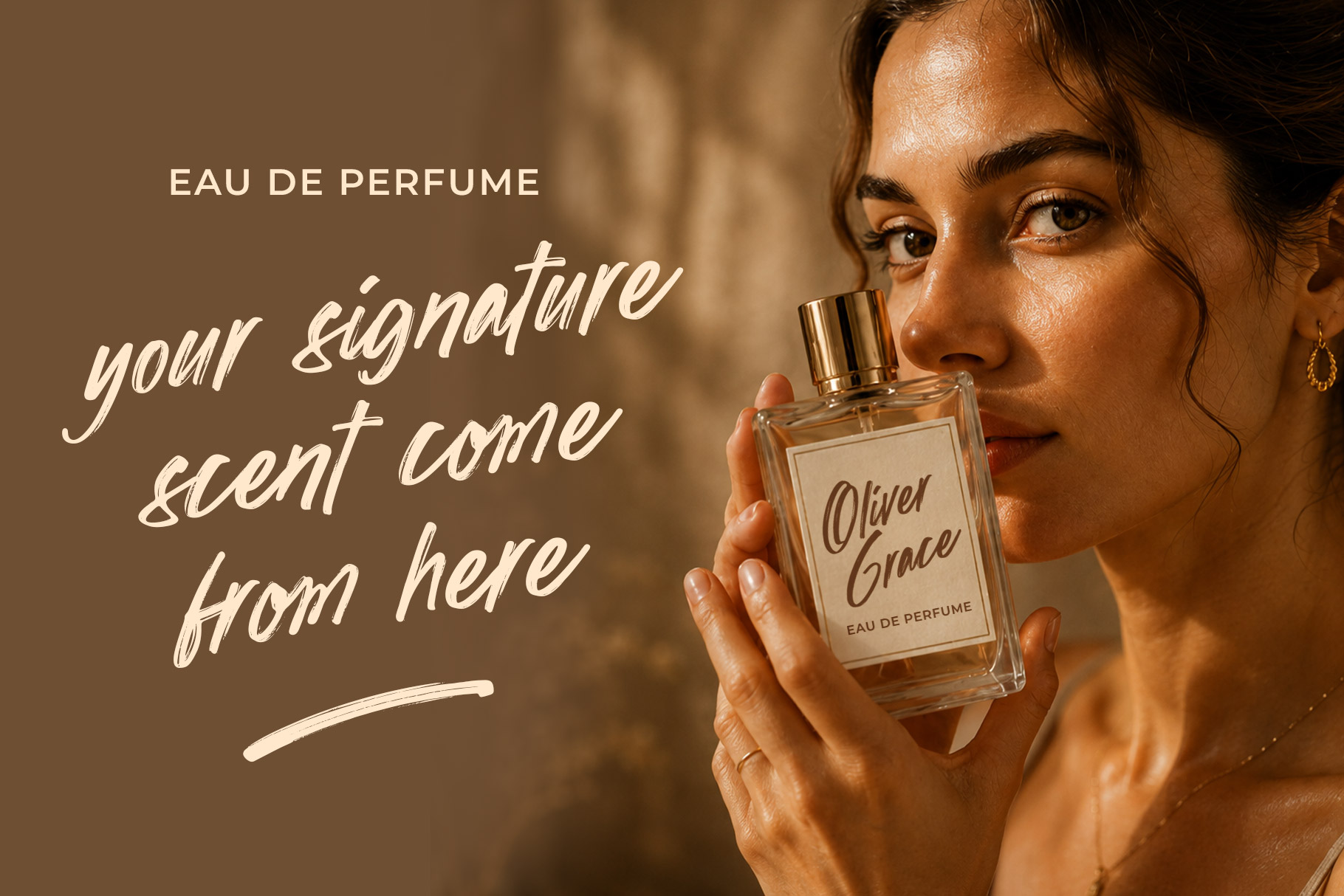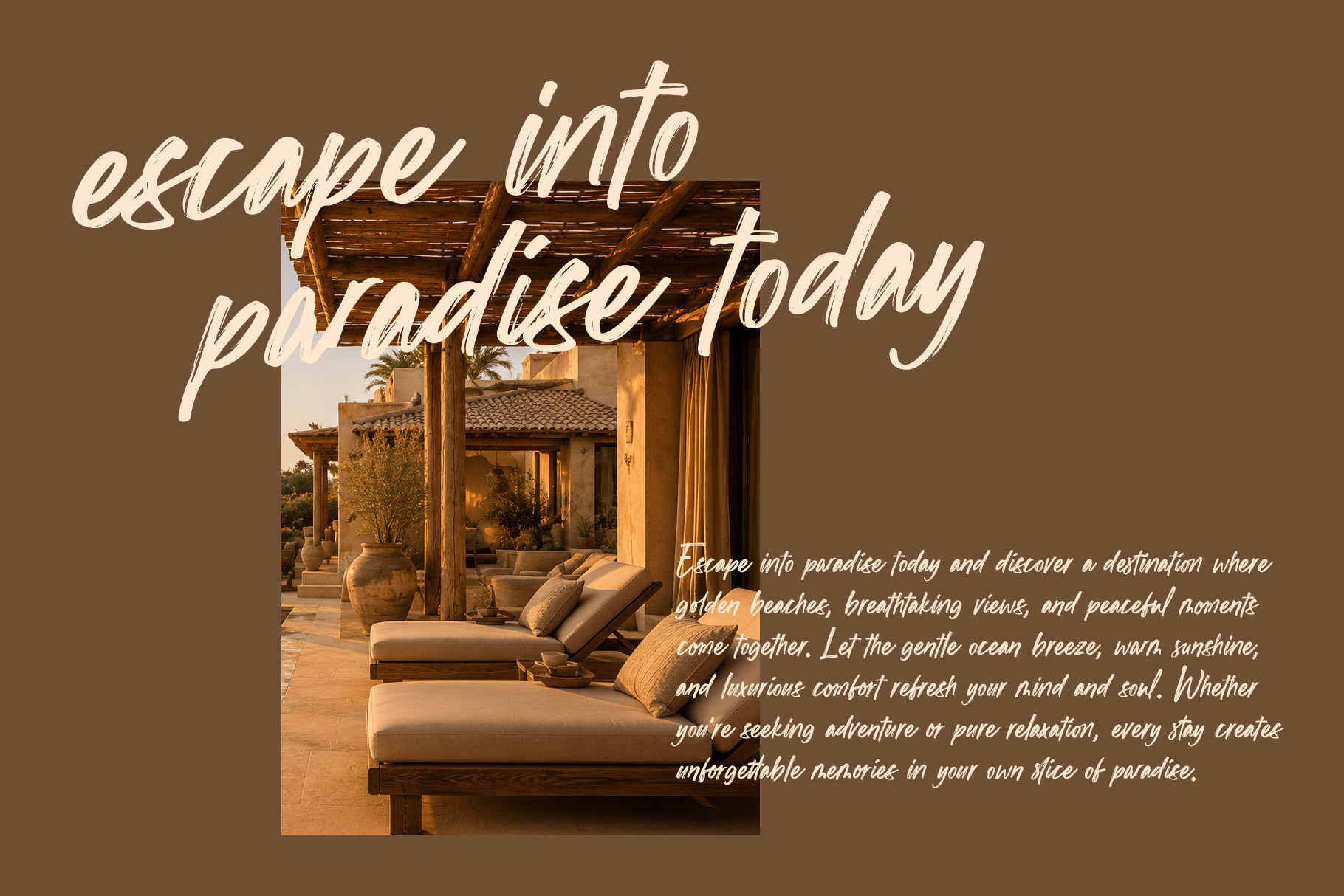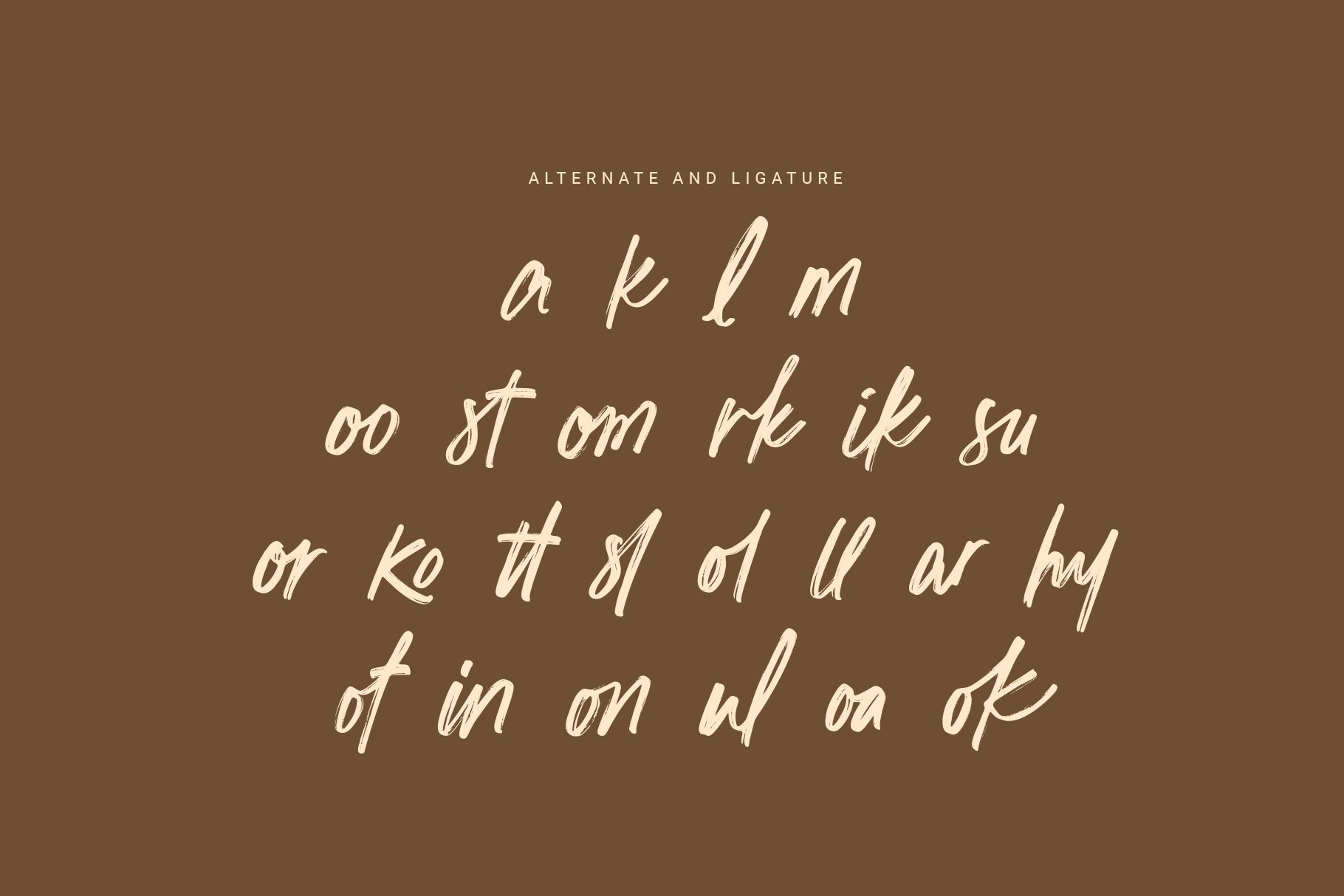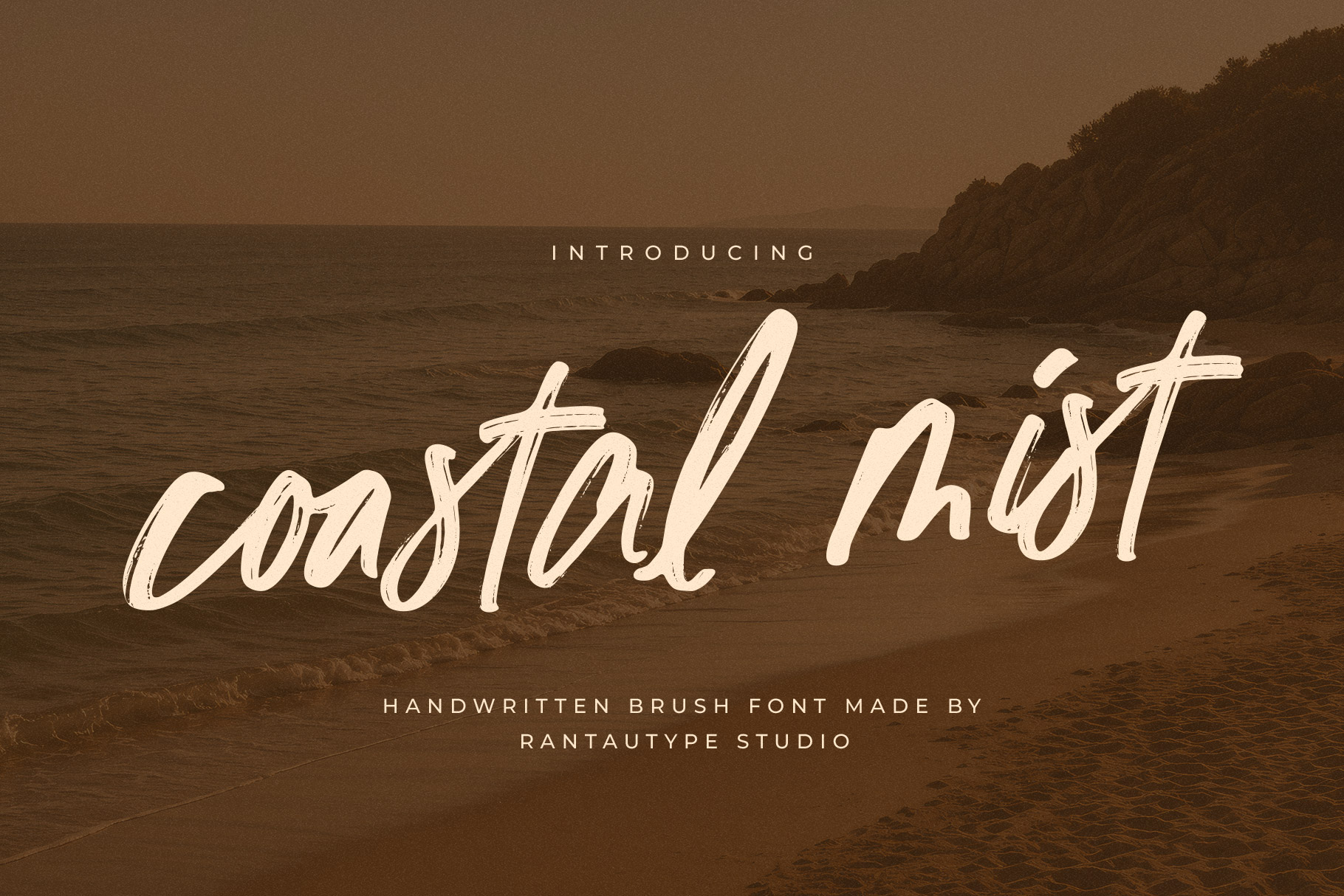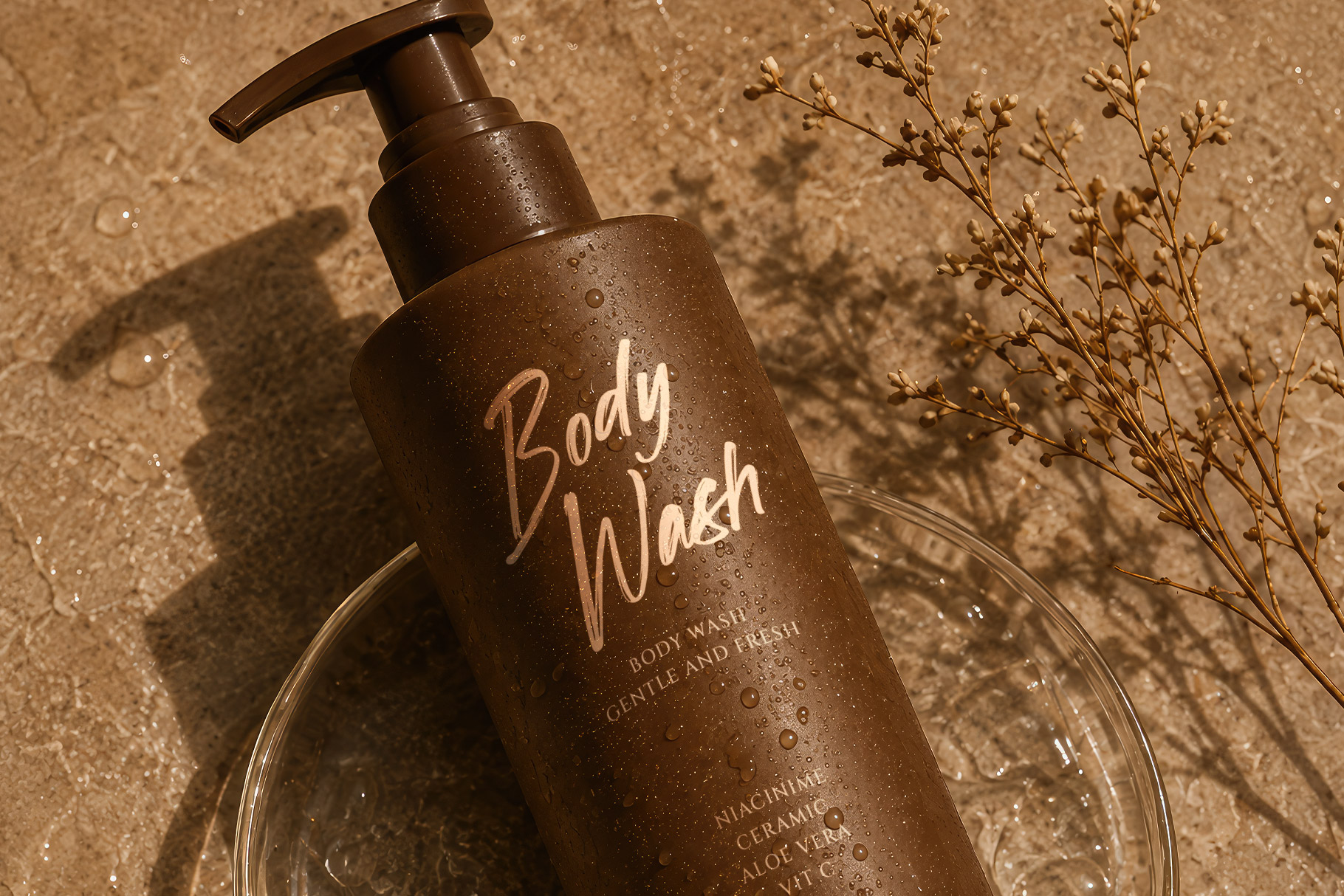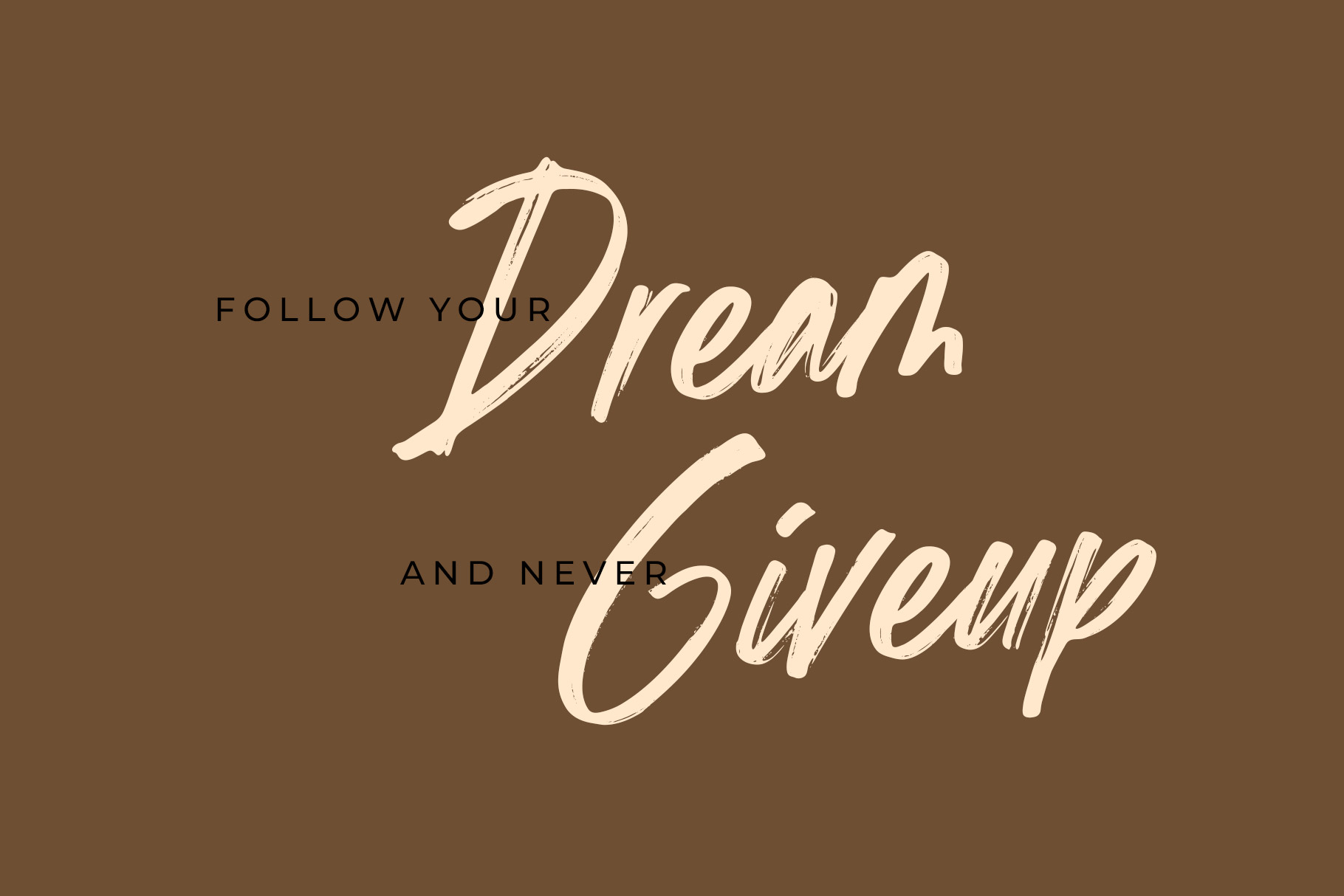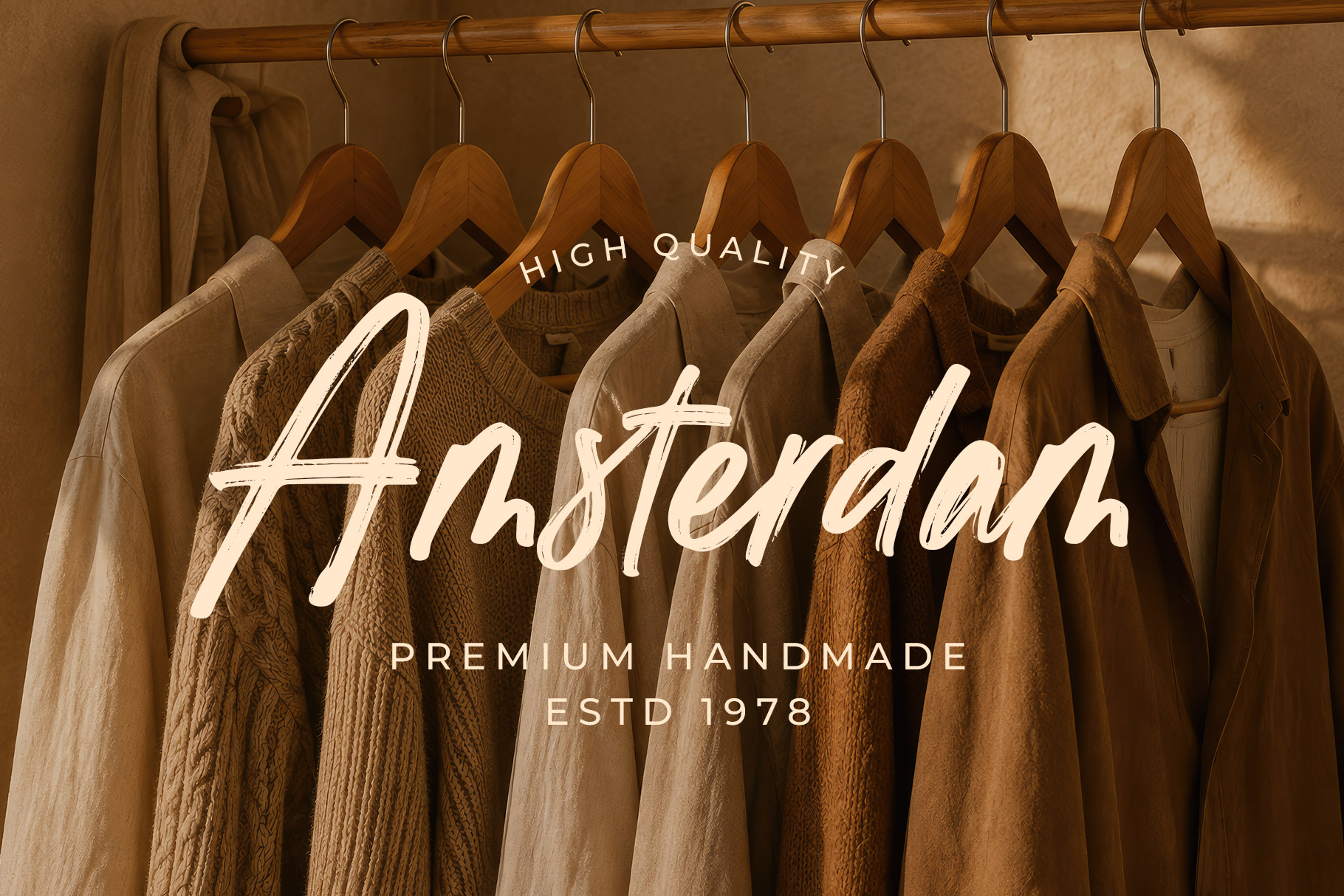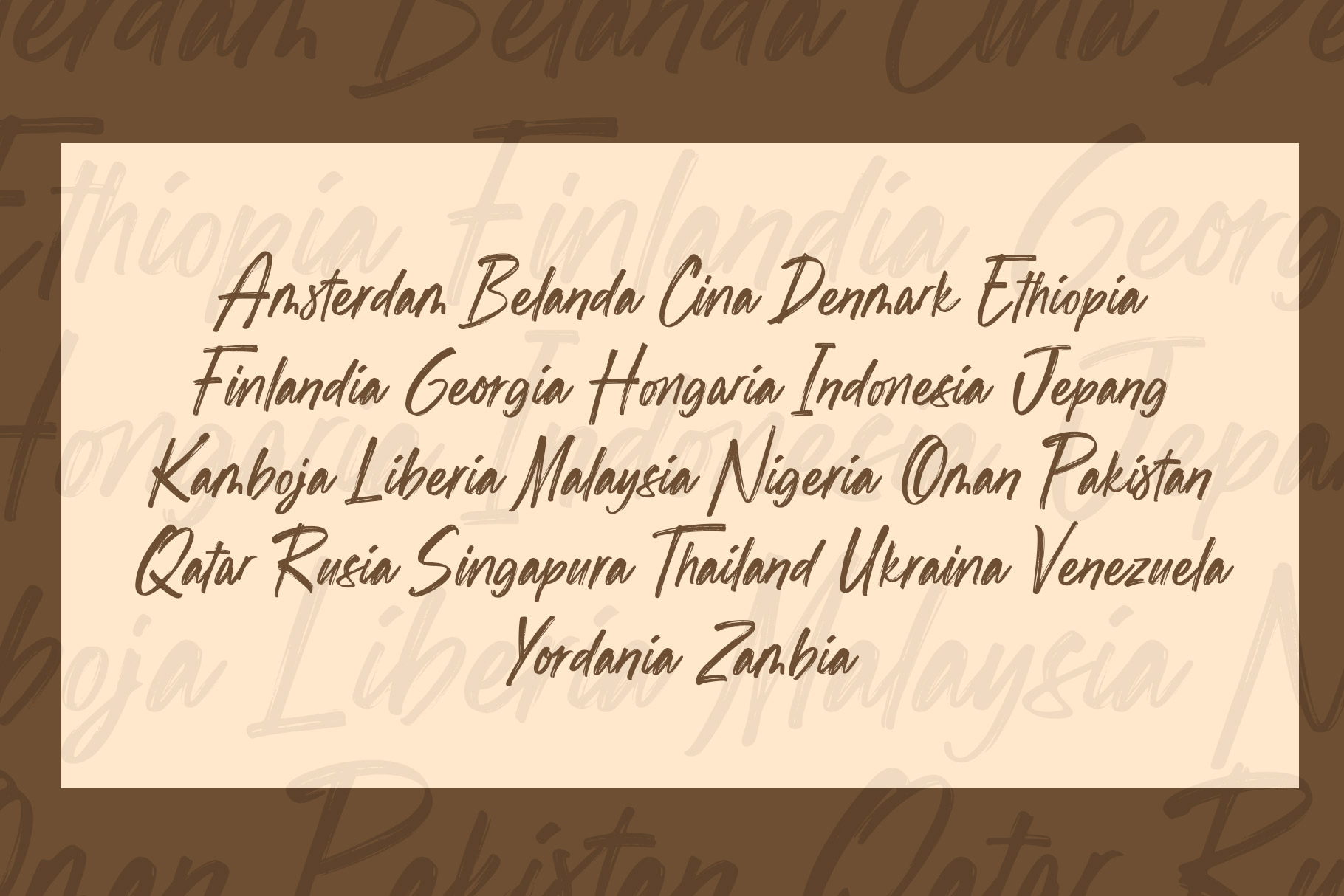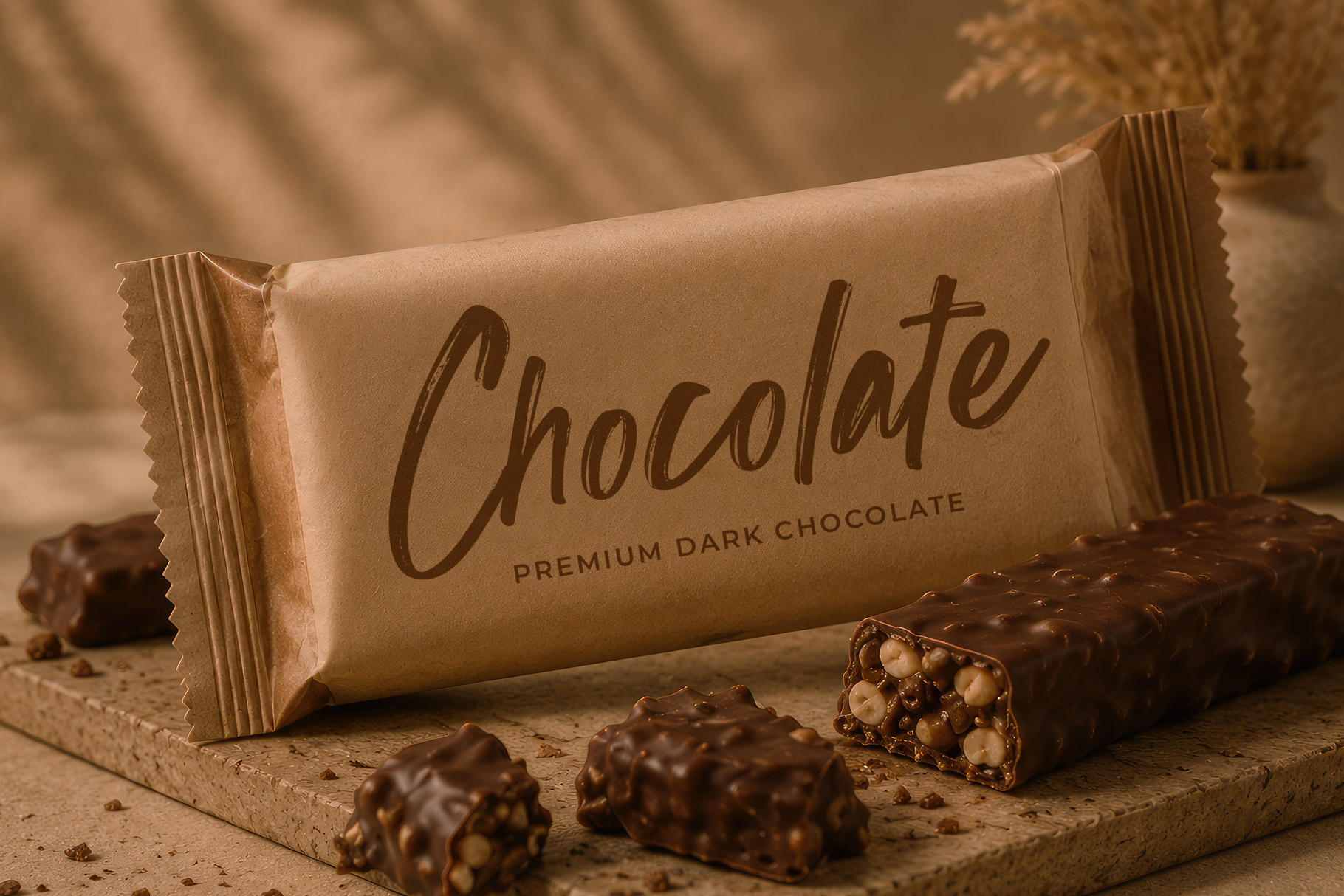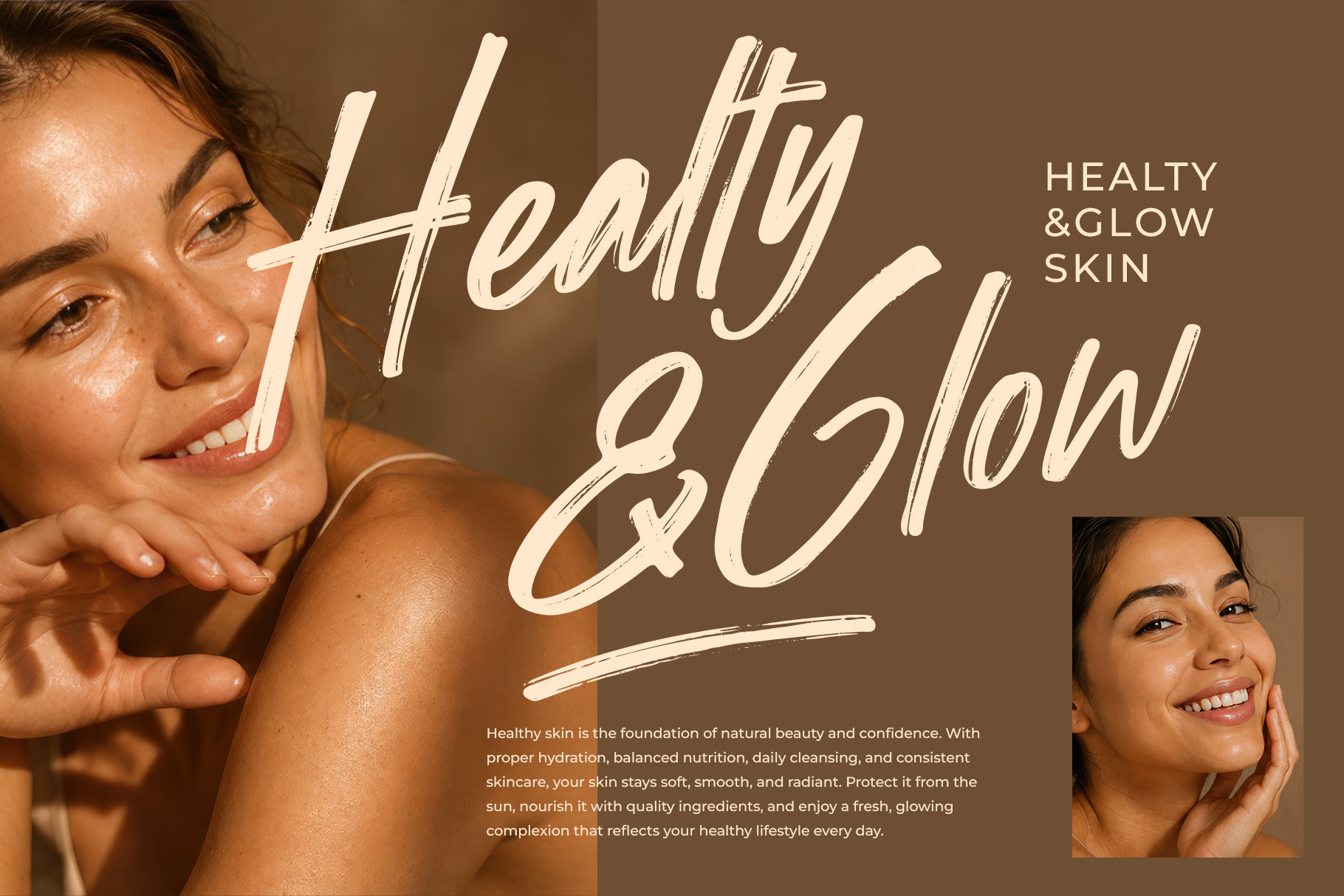
Coastal Mist is brush font that combines expressive handwritten strokes with refined elegance, creating a bold yet sophisticated visual identity. Its natural brush texture, flowing letterforms, and dynamic stroke variations deliver an authentic handcrafted appearance that feels artistic and premium
Coastal Mist is a perfectly choice for any creative endeavor, creating, modern, lifestyle design such as logotype, title, cover, branding, invitations, wedding designs, display and magazine, social media posts, advertisements, printed quotes, product packaging, corporate brand, wedding invitations, product designs, labels, photography, watermarks, special events and any other project with artistic touch.
Coastal Mist Handwritten Brush Font